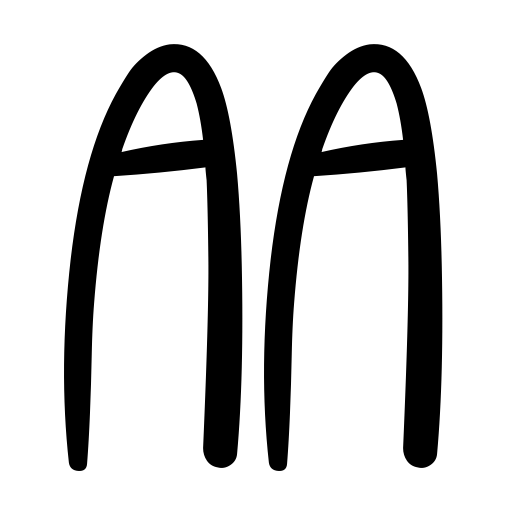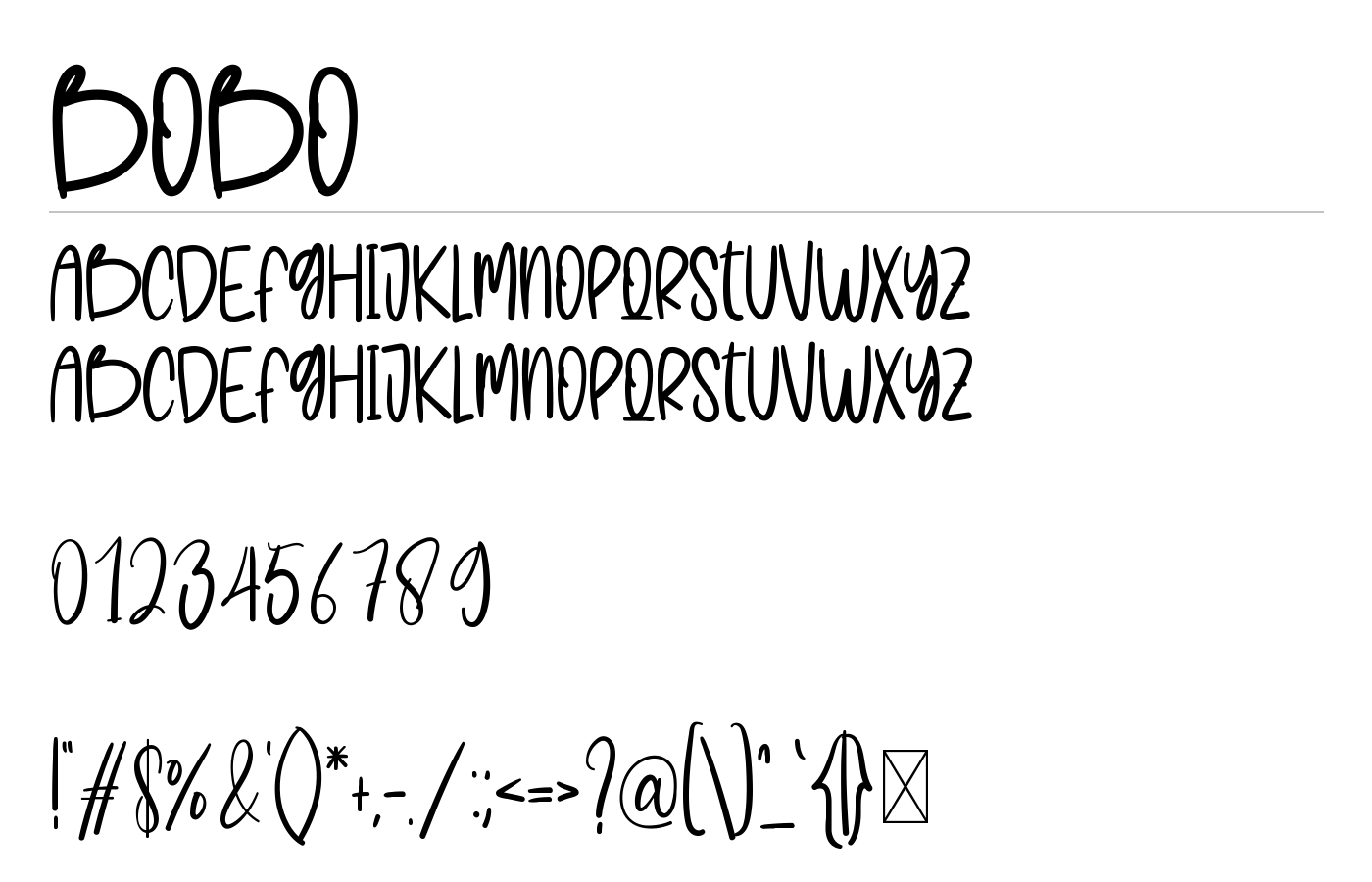
Bobo Font is a playful and casual handwritten typeface characterized by its tall, narrow letters and uneven stroke widths that give it an organic, friendly feel. Its irregular shapes and whimsical curves make it perfect for informal designs, children's projects, or anything aiming for a lighthearted and approachable vibe. This font works well in headlines, logos, and creative branding where a fun, personal touch is desired.
Bobo Font
About Bobo Font